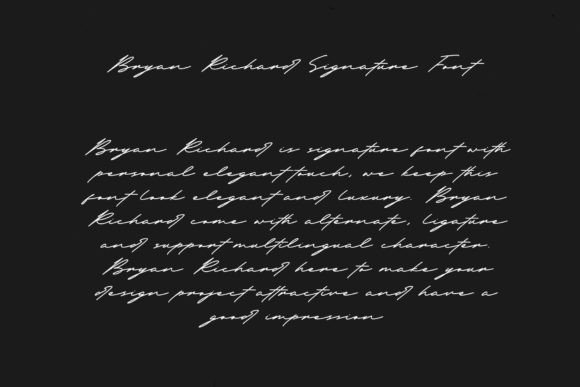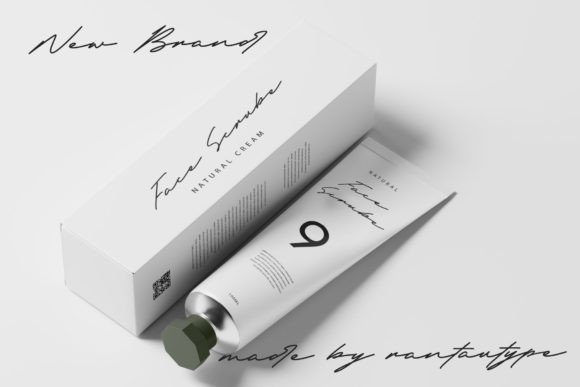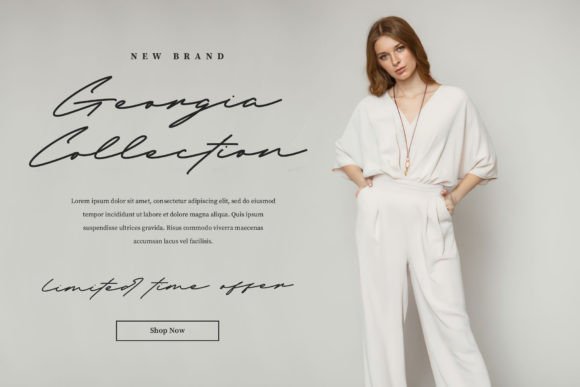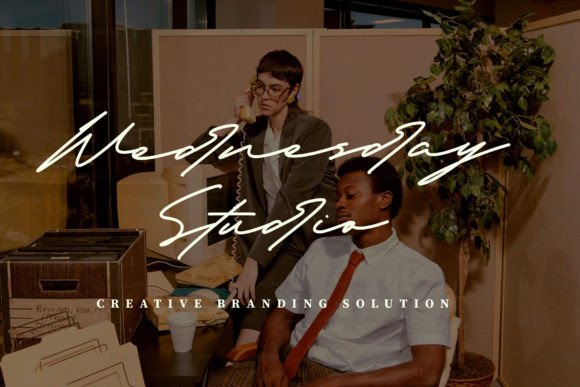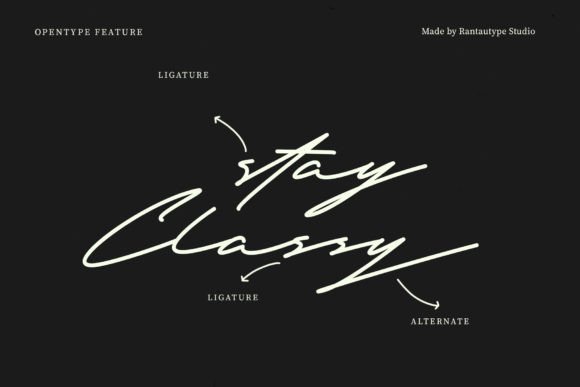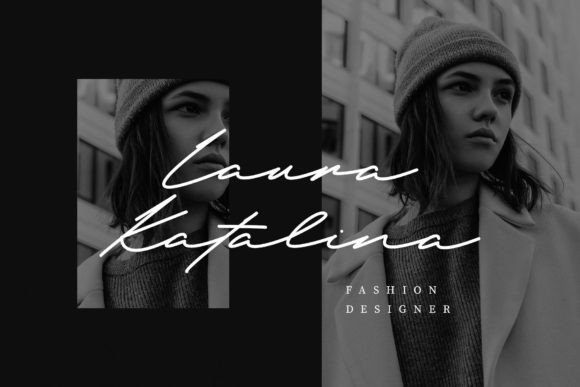
Bryan Richard Font: Elevate Your Designs with Elegance and Luxury
In the world of typography, fonts play a crucial role in defining the aesthetic and tone of a design project. Among the myriad of fonts available, Bryan Richard stands out as a signature font that exudes elegance and luxury. This stylish and sophisticated font is designed to bring a high-end feel to your brand, making it stand out and grab attention. In this article, we’ll delve into the features and benefits of the Bryan Richard font and explore how it can elevate your creative projects.
The Essence of Bryan Richard Font
Bryan Richard is more than just a font; it’s a statement of style and sophistication. Its fashionable, classy, and refined look makes it an ideal choice for designers and crafters seeking to add a touch of luxury to their work. Whether you’re designing logos, titles, watermarks, covers, branding materials, wedding invitations, magazine layouts, quotes, album covers, business cards, or any other design project, Bryan Richard is the perfect companion.
Key Features of Bryan Richard Font
- Elegant and Luxurious: Bryan Richard boasts an elegant and luxurious feel, perfect for high-end branding and designs.
- Handwritten Charm: The font features a handwritten style that adds a personal and refined touch to your designs.
- Versatile: Suitable for a wide range of creative projects, from logos and titles to wedding invitations and magazine layouts.
- High-Quality: Crafted with precision, Bryan Richard ensures high-quality text that stands out in any design.
Benefits of Using Bryan Richard Font
Choosing Bryan Richard for your design projects comes with numerous benefits. Here are a few:
- Enhanced Visual Appeal: The font’s elegant and luxurious look instantly enhances the visual appeal of your designs.
- Brand Differentiation: With its unique and sophisticated style, Bryan Richard helps your brand stand out from the competition.
- Emotional Connection: The handwritten charm of the font creates an emotional connection with your audience, making your designs more relatable and engaging.
- Time-Saving: The versatility of Bryan Richard means you can use it across various projects, saving you time and effort in choosing different fonts.
Creative Applications of Bryan Richard Font
The versatility of Bryan Richard makes it suitable for a myriad of design applications. Here are some creative ways to use this elegant font:
- Logo Design: Create a lasting impression with a logo that exudes elegance and sophistication.
- Wedding Invitations: Add a touch of luxury and romance to your wedding invitations and stationery.
- Branding Materials: Elevate your brand’s visual identity with Bryan Richard’s high-end feel.
- Magazine Layouts: Use the font for headings and titles to add a classy touch to your magazine layouts.
- Album Covers: Create stunning album covers that reflect the elegance of the music within.
- Business Cards: Stand out in the business world with elegant and sophisticated business cards.
Tips for Using Bryan Richard Font Effectively
To maximize the impact of Bryan Richard in your designs, consider the following tips:
- Pair with Complementary Fonts: Combine Bryan Richard with simpler fonts to create a balanced and harmonious design.
- Adjust Font Sizes: Play with different font sizes to create visual hierarchy and emphasize key elements.
- Experiment with Colors: While the font itself is elegant, experimenting with colors can further enhance its appeal.
- Maintain Readability: Ensure that your text remains readable, especially when using the font for longer passages.
Bryan Richard Font is a powerful tool for designers and crafters looking to infuse their projects with elegance and luxury. Its stylish, high-end feel, combined with its versatility and handwritten charm, makes it an excellent choice for a wide range of creative applications. By incorporating Bryan Richard into your designs, you not only elevate their visual appeal but also create a lasting impression on your audience. So, why settle for ordinary when you can create something extraordinary with Bryan Richard Font?